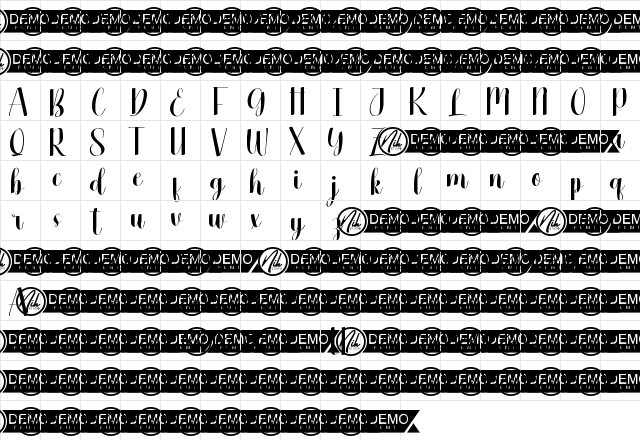
Better Change Demo Regular Free Font
Better Change Demo Regular
Foundry: NihStudio
Designer: Widiyanti
Design Context for Better Change Demo
Better Change Demo is a composed and adaptable typeface that performs quietly and consistently across a wide range of design contexts.
Pro Tip: Use Better Change Demo in both headline and body roles to test its range before committing to a single application.